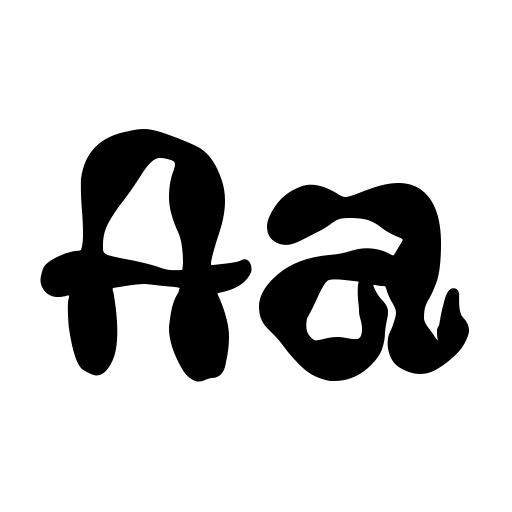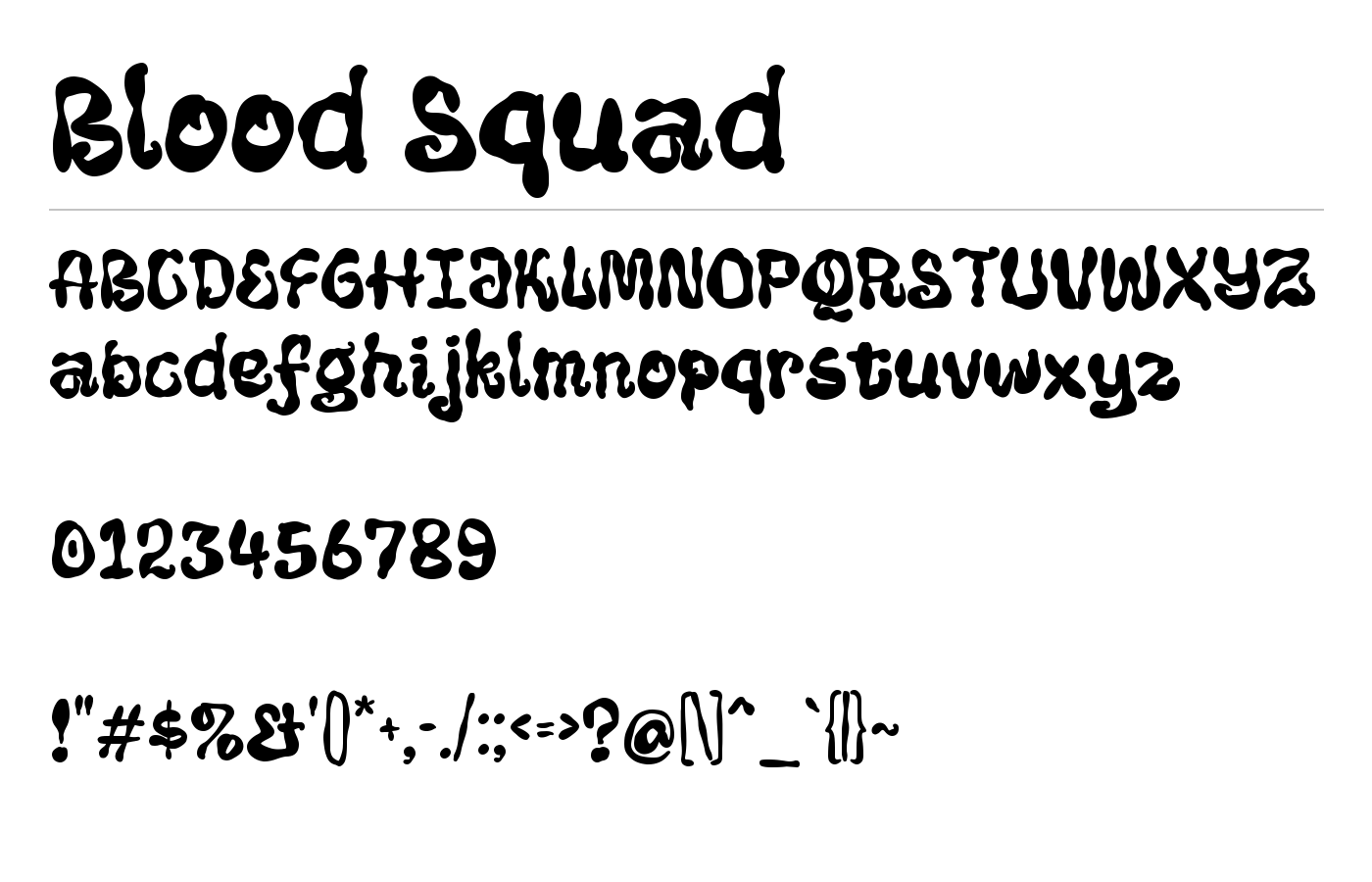
Blood Squad is a playful, bold sans serif font with a quirky, hand-drawn feel that gives it a slightly rough and organic appearance. Its thick, irregular strokes and rounded shapes evoke a casual, fun vibe, making it perfect for creative projects, posters, and designs that want to communicate energy and uniqueness in a friendly, informal way. This font works best in headlines or display uses where personality and a touch of whimsy are desired.
Blood Squad Font
About Blood Squad Font